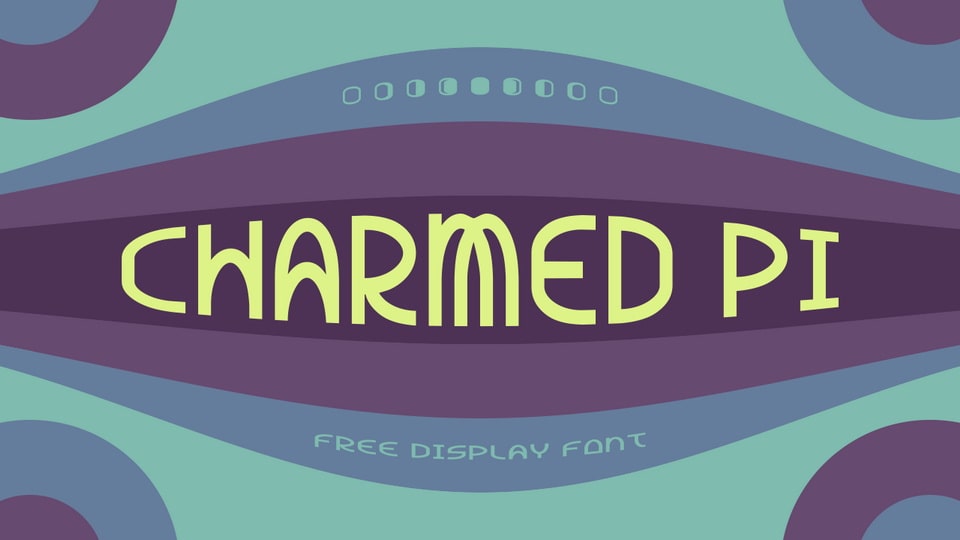
Download Charmed Pi font, a modular geometric typeface with a cool, technical look. With its unique personality Charmed Pi font is perfect for logos, headlines, posters, album artworks, creative typography.